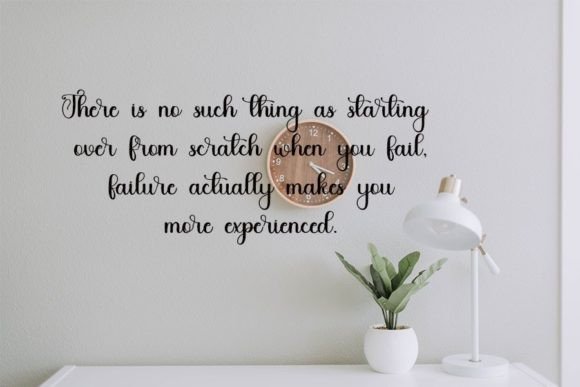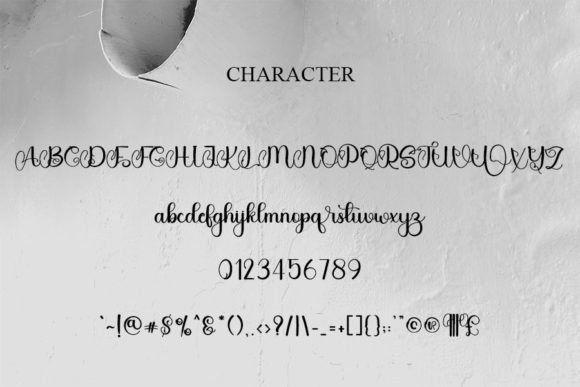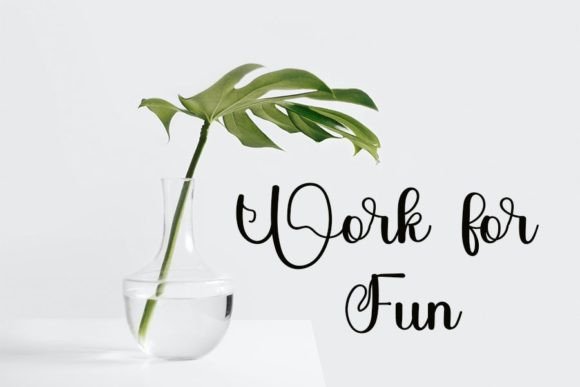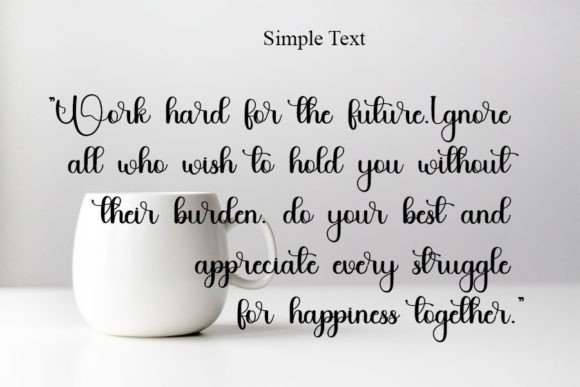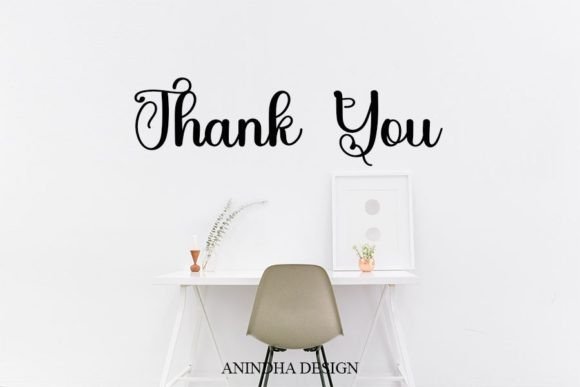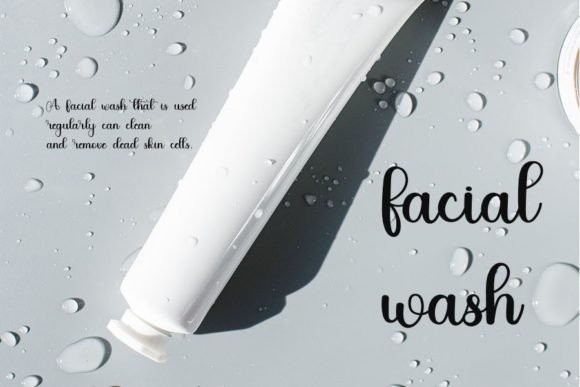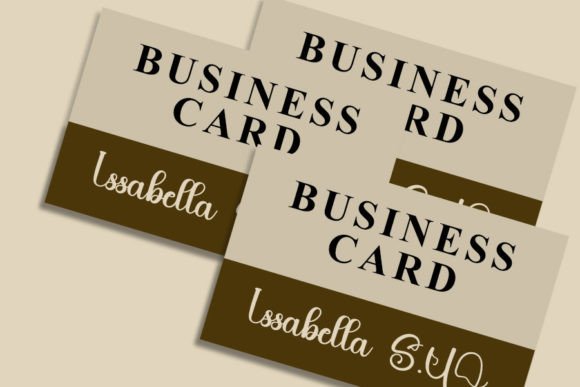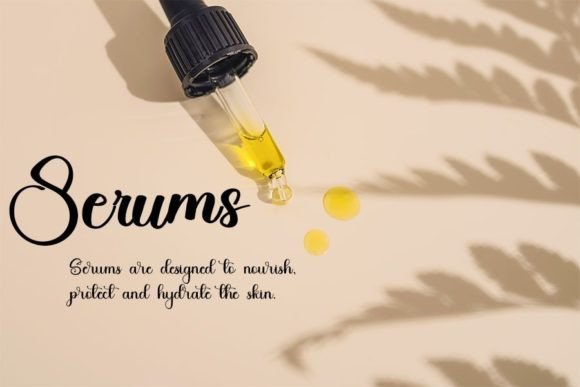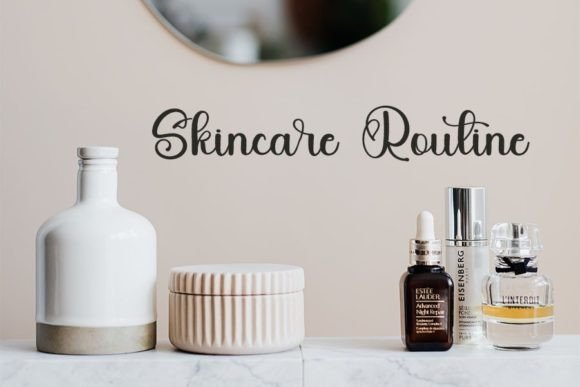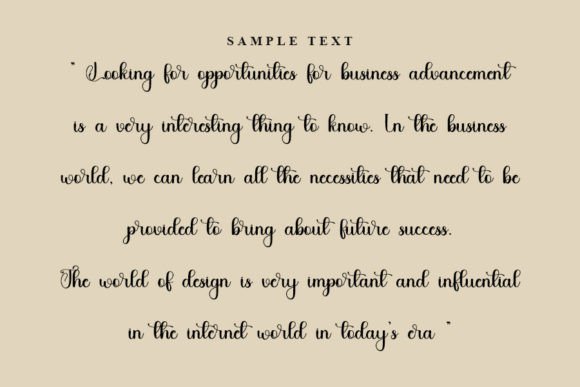
Anything Font
About Anything Font
“Anything” is a stylish handwritten font that embodies a contemporary charm while drawing inspiration from the timeless elegance of classic calligraphy. With its balanced and versatile design, “Anything” has the potential to elevate the aesthetic appeal of your various creative projects.
The font’s versatility makes it suitable for a wide range of design applications. Whether you’re working on branding, logo design, graphic design, or typography, “Anything” offers an elegant and versatile option.
For branding and visual identity, “Anything” can play a pivotal role in establishing a sophisticated and refined image for businesses and brands. Its timeless calligraphic influence adds a touch of class and elegance, making it ideal for those seeking an upscale and memorable brand identity.
In printed materials such as posters, flyers, and promotional materials, “Anything” adds a touch of grace and uniqueness. Its handwritten script exudes authenticity and artistry, making it an excellent choice for capturing attention and effectively conveying messages.
For personal projects like invitations, greeting cards, and stationery, “Anything” can add a layer of elegance and charm. It imparts a sense of timeless beauty to your words, making it suitable for a variety of special occasions and personal expressions.
In essence, “Anything” is more than just a font; it’s a creative tool that brings a stylish and sophisticated atmosphere to your projects. Its adaptability and timeless aesthetics make it a valuable asset for designers and individuals looking to infuse their work with a touch of class and beauty, enhancing the overall appeal of their creative endeavors.